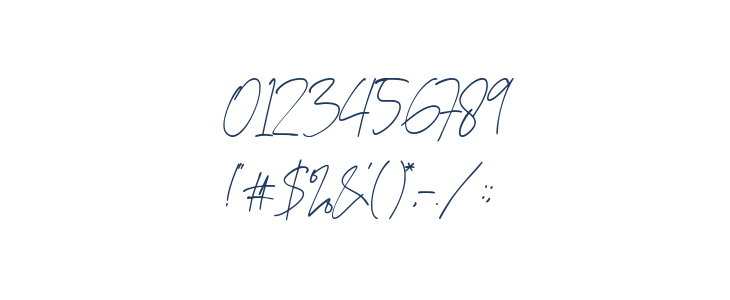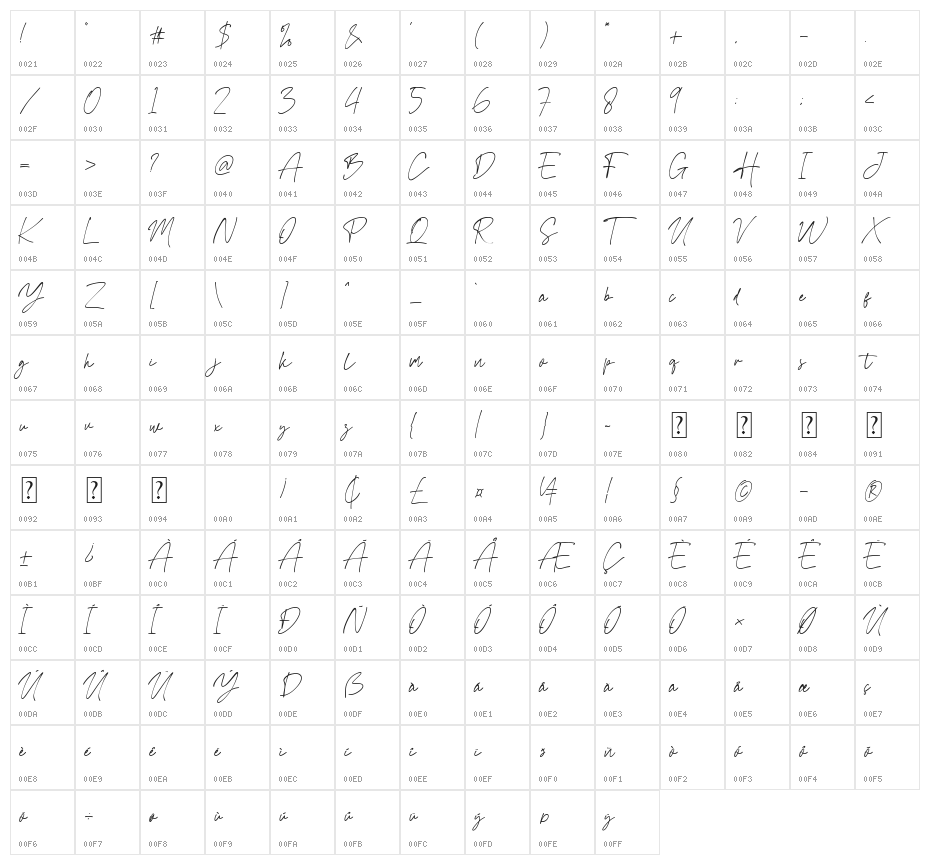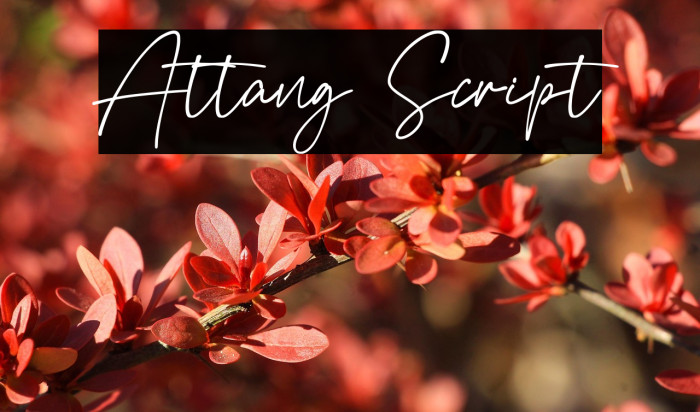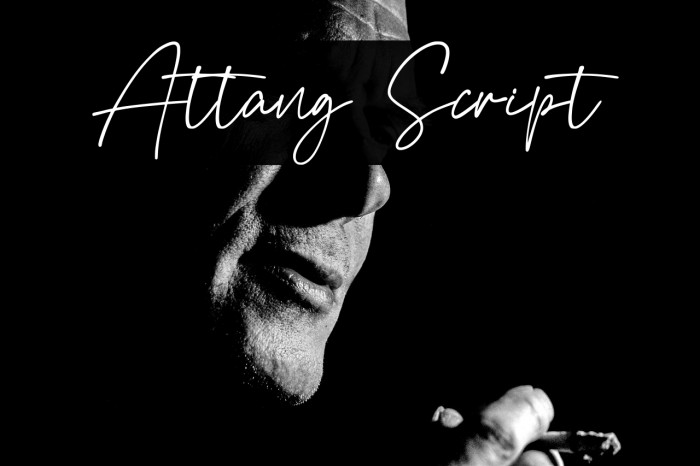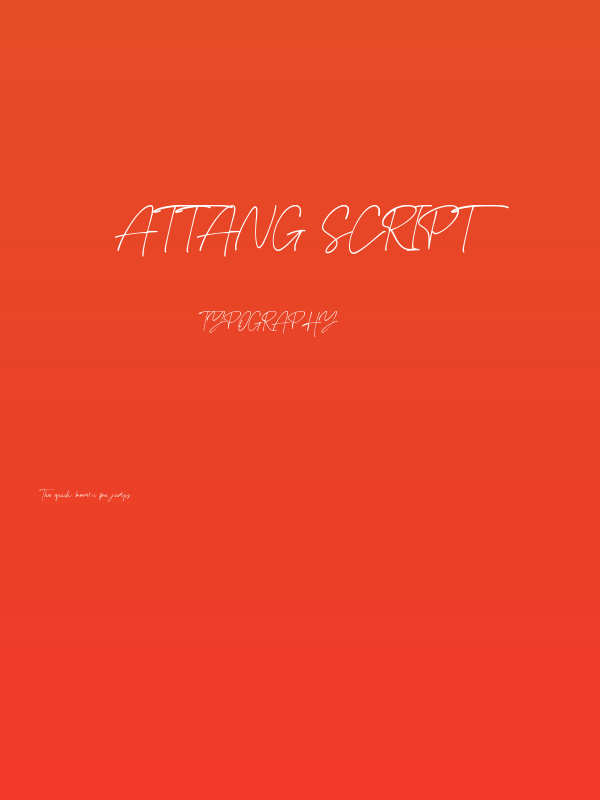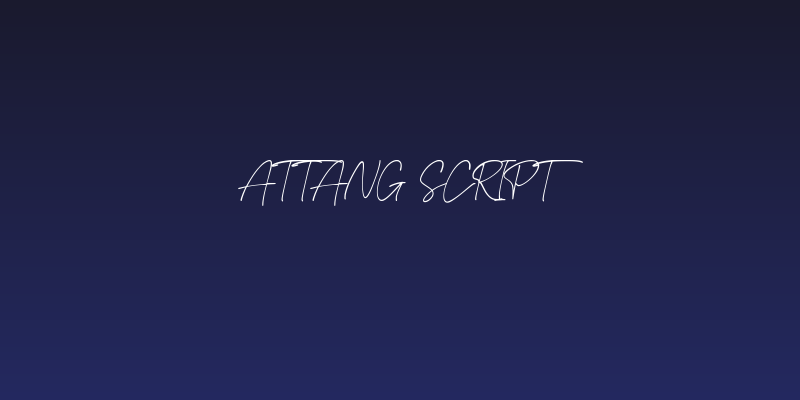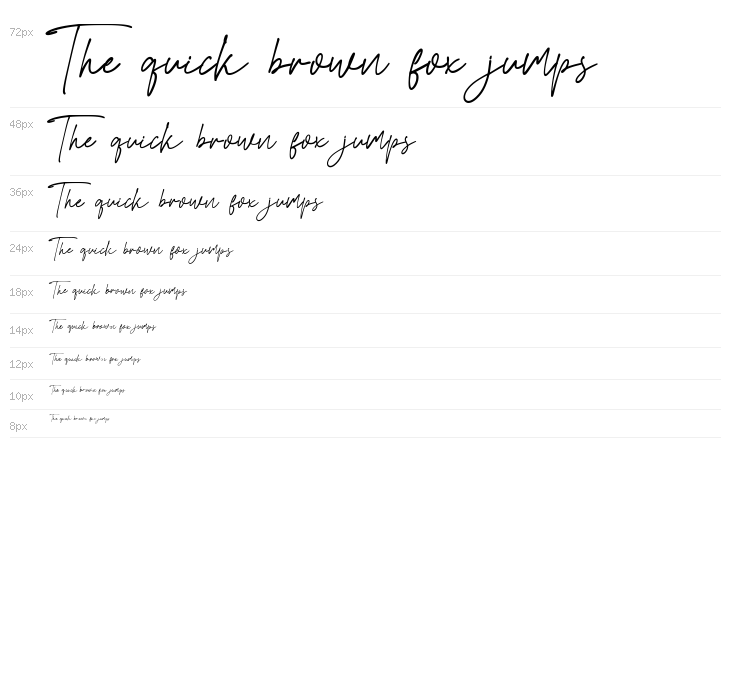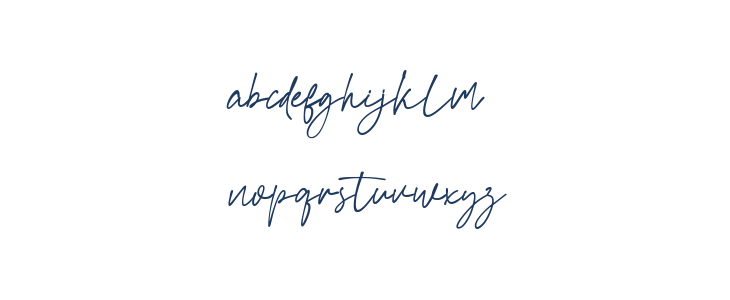
Attang Script Font
Attang Script Description
This font exudes a casual, handwritten style with a flowing script that mimics natural handwriting. The uppercase letters are bold and expressive, with a slight slant that adds to the dynamic feel. The lowercase letters maintain a consistent flow, enhancing readability while retaining a personal touch. Numbers are crafted with the same fluidity, ensuring they blend seamlessly with the alphabet. Special characters are thoughtfully designed to match the overall aesthetic, making this font versatile for various uses. The strokes are smooth and continuous, giving it an elegant yet approachable appearance.
| Overall Style | Casual, Elegant |
| Use Case | Logos, Invitations, Social Media |
| Proposed Projects | Ideal for personal branding, invitations, greeting cards, and social media graphics. |